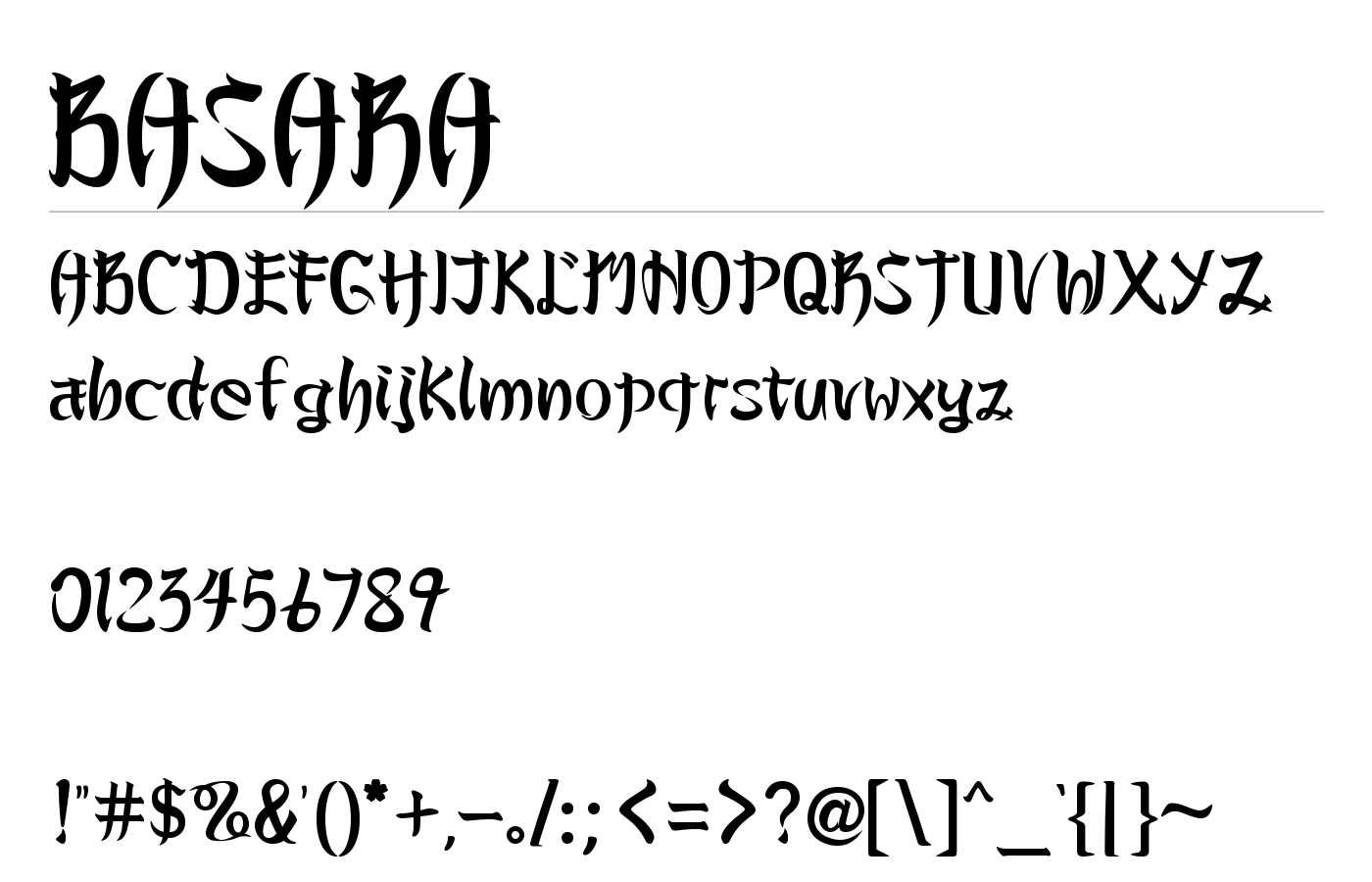
Basara is a decorative serif font with strong, sharp strokes and a bold, condensed appearance that conveys a dramatic and edgy feel. Its high contrast and ornate letterforms, inspired by calligraphic and gothic styles, make it ideal for striking headlines, logos, and design projects that seek a mysterious or fantasy-inspired mood. This font works best in display use where its unique personality can stand out without compromising readability.
BASARA Font
About BASARA Font